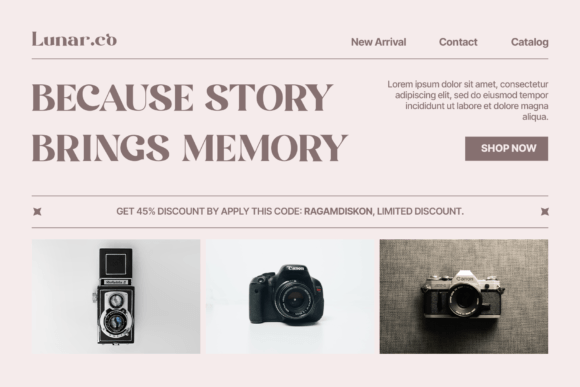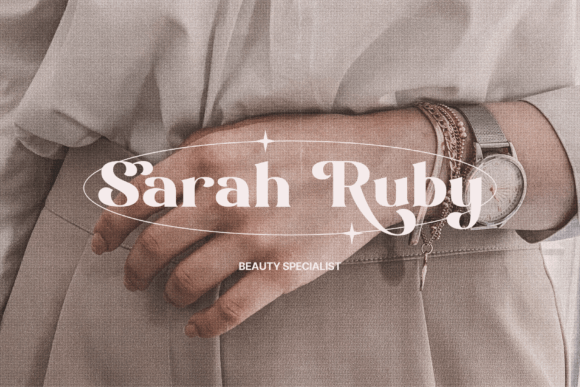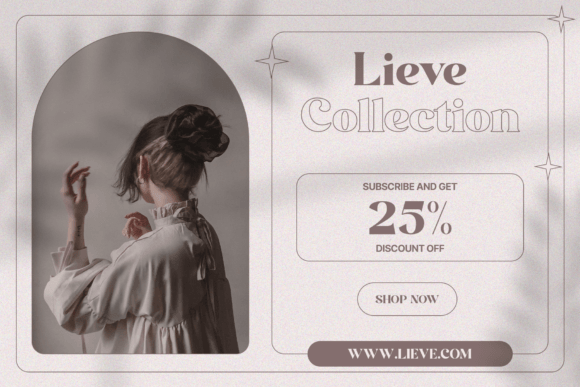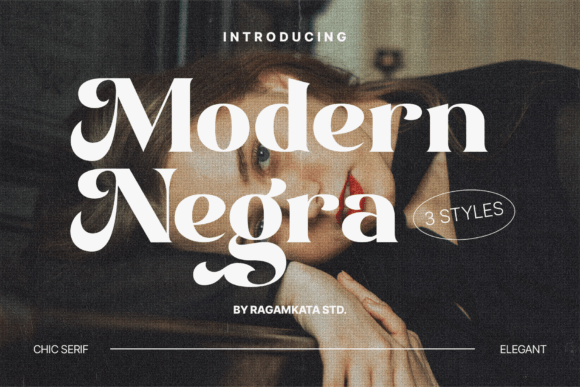
Introduction to Modern Negra Font
Modern Negra is a Modern elegant serif typeface with Unique alternative, multilingual support with perfect kerning.
This typeface is perfect for an elegant & luxury logo, classy editorial design, women’s magazine, fashion brand, cosmetic brand, fashion promotion, modern advertising design, invitation card, art quote, home decoration, book/cover titles, special events, Tote bag, T-shirt, Advertising and much more .
Key Features of Modern Negra Font